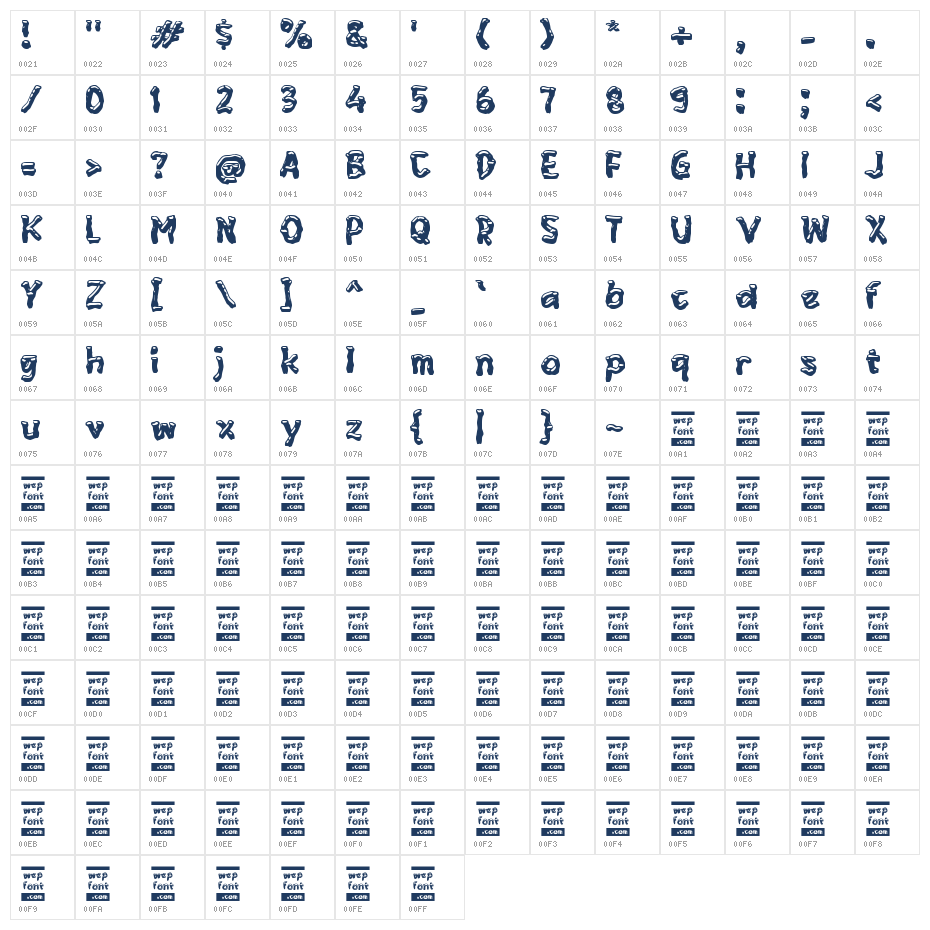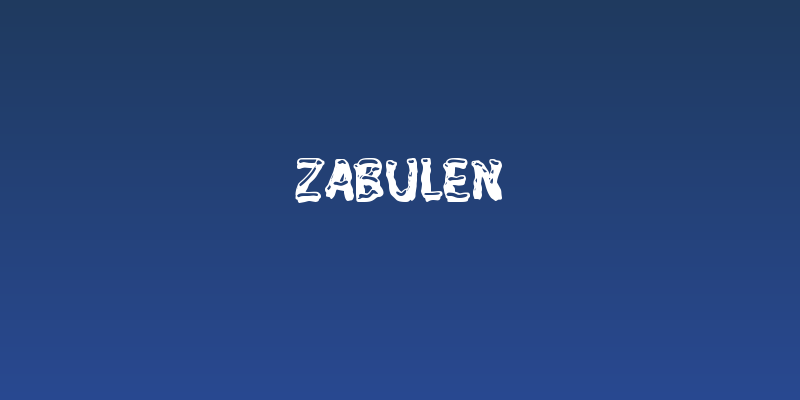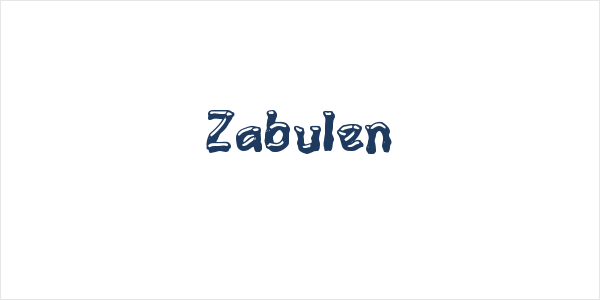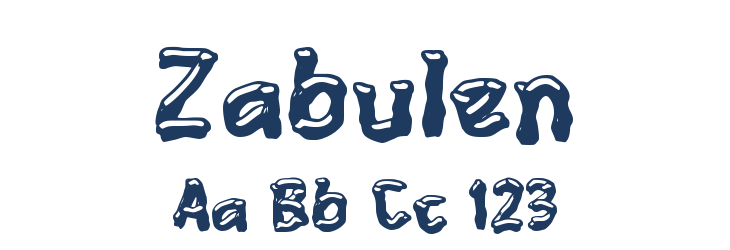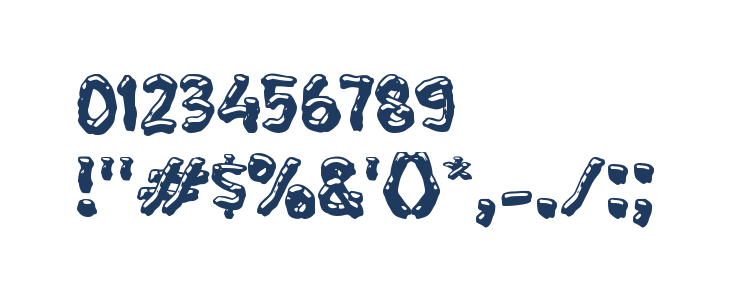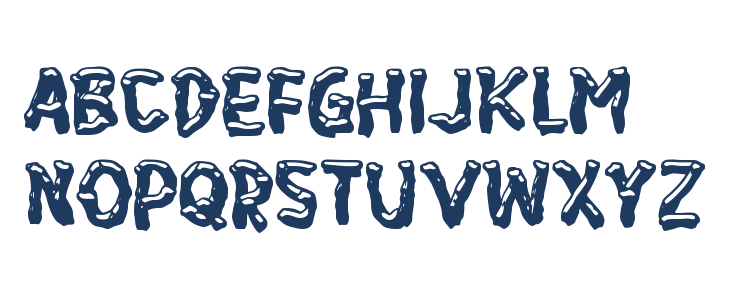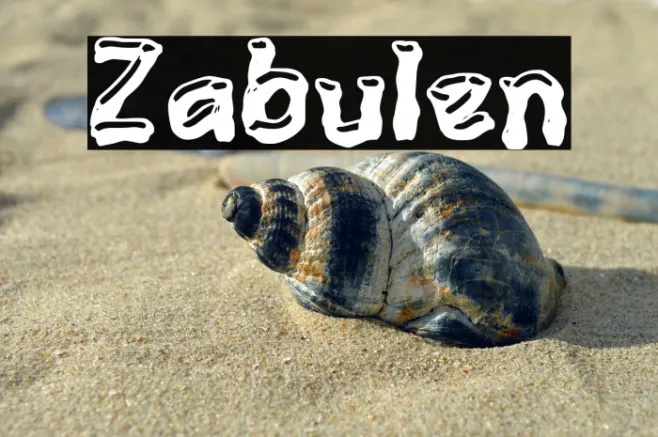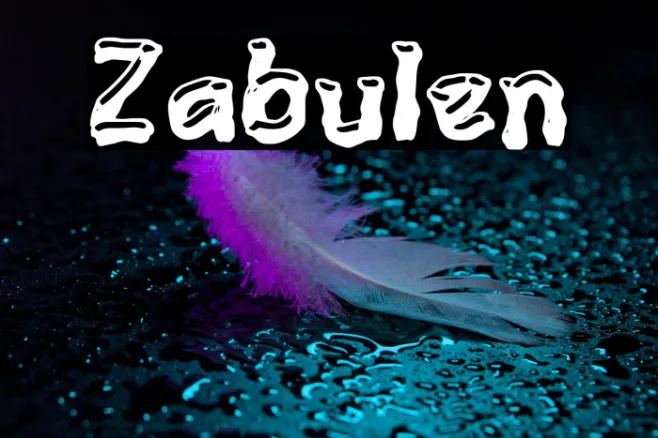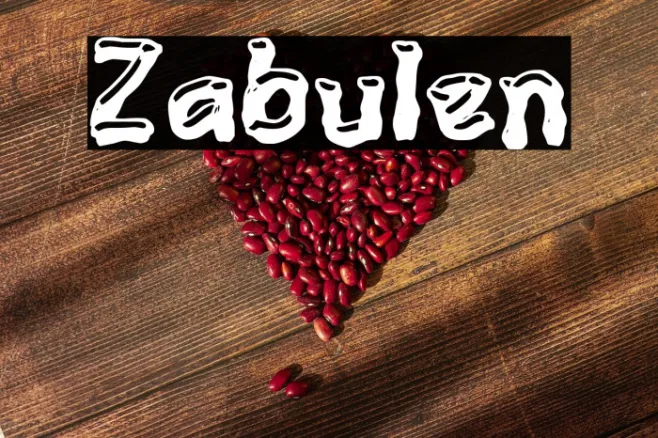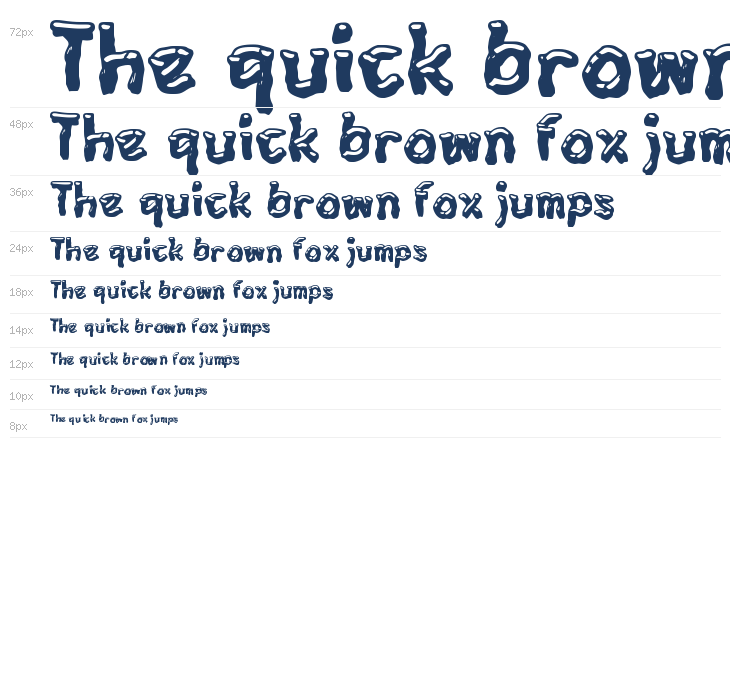
Zabulen Font
Zabulen Description
A playful, irregular, hand-drawn style font with a textured, bubbly appearance, featuring uppercase and lowercase letters, numbers, and common punctuation.
ZABULEN UPPERCASE
ZABULEN LOWERCASE
ZABULEN OTHER CHARS
| Overall Style | Playful, Hand-drawn, Casual |
| Use Case | Headlines, Posters, Children's materials, Logos, Packaging |